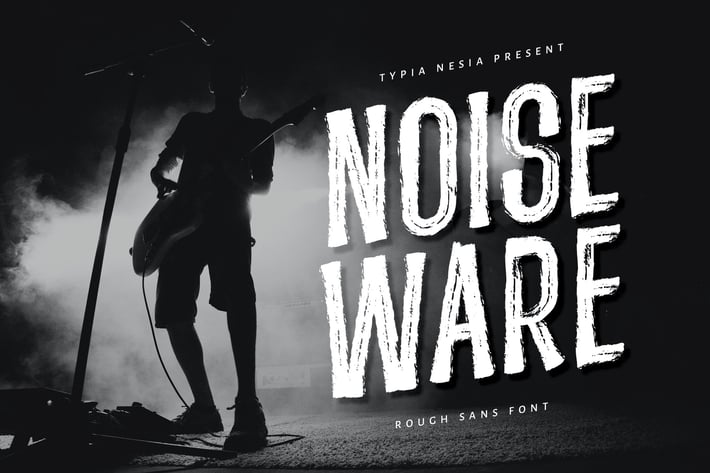
Noiseware - Handbrushed Font
Noiseware - Allcaps brush Font - Music Event / festival Font
It can be used in different purposes: lettering and logotype, labels, t-shirts, music event, festival branding, product packaging, apparel, invitations, advertising, and any typography design projects.